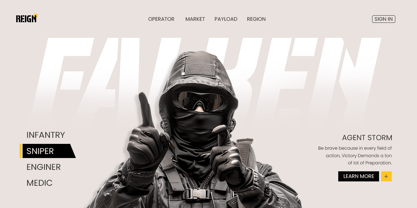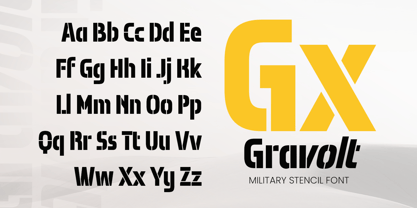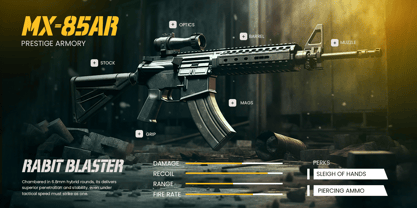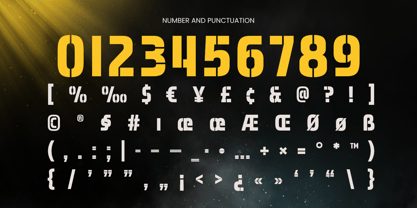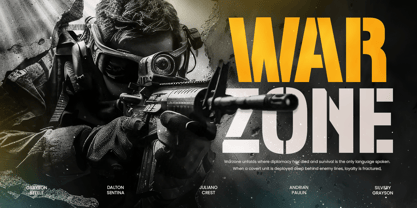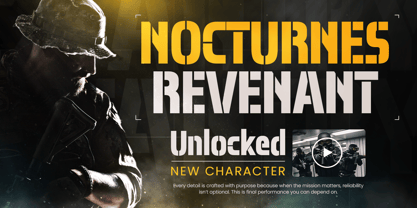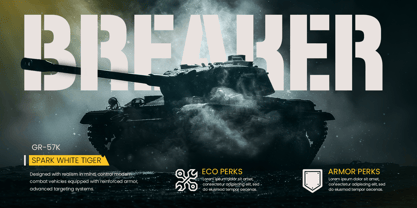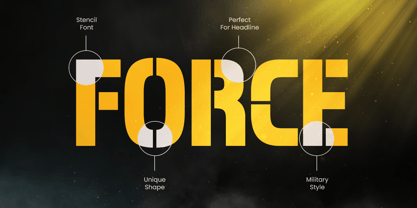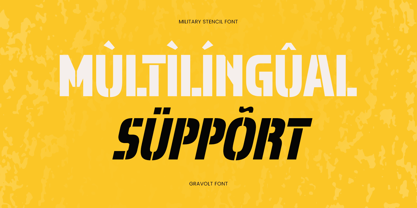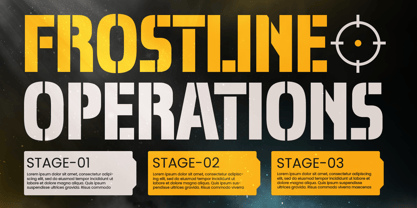
GRAVOLT is a military stencil bold condensed font designed to embody strength, resilience, and authority. With its heavy, condensed letterforms and sharp stencil cutouts, GRAVOLT brings a rugged, industrial aesthetic perfect for military-themed designs, urban branding, and combat-ready visuals.
This font is ideal for bold logos, strong headlines, tactical branding, and gritty promotional material. Whether you’re designing for military events, action-packed campaigns, or rugged product lines, GRAVOLT delivers the power and toughness you need to make a strong statement.
The condensed structure ensures that every letter retains its impact, whether printed on large posters, apparel, or digital platforms. Get ready to elevate your design projects with a bold, military-inspired font that stands the test of time.
GRAVOLT – Military Stencil Bold Condensed Font Features
Bold, condensed military stencil letterforms
Strong, rugged design perfect for impactful branding
Includes uppercase, lowercase, numerals, and punctuation
OpenType features for flexibility in design
Multilingual support for
Afrikaans, Albanian, Asu, Basque, Bemba, Bena, Breton, Chiga, Cornish, Dutch, English, Estonian, Filipino, Finnish, Friulian, Galician, German, Gusii, Indonesian, Irish, Italian, Kabuverdianu, Kalenjin, Kinyarwanda, Luo, Luxembourgish, Luyia, Machame, Makhuwa-Meetto, Makonde, Malagasy, Manx, Morisyen, North Ndebele, Nyankole, Oromo, Portuguese, Quechua, Romansh, Rombo, Rundi, Rwa, Samburu, Sango, Sangu, Scottish Gaelic, Sena, Shambala, Shona, Soga, Somali, Spanish, Swahili, Swedish, Swiss, and more.